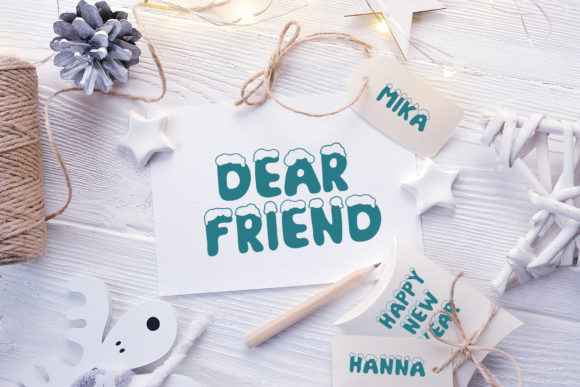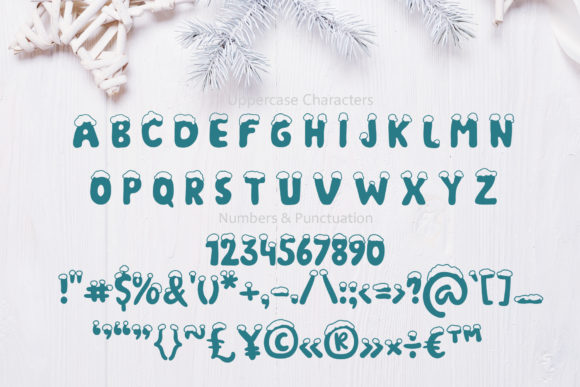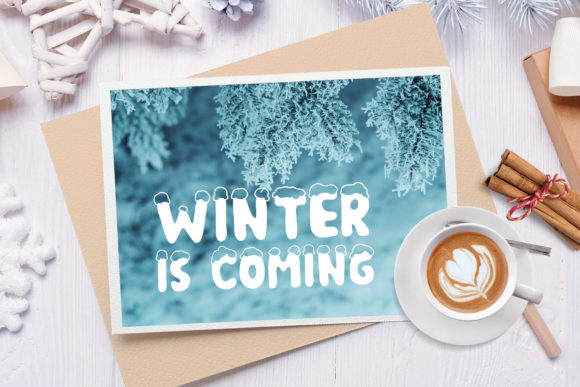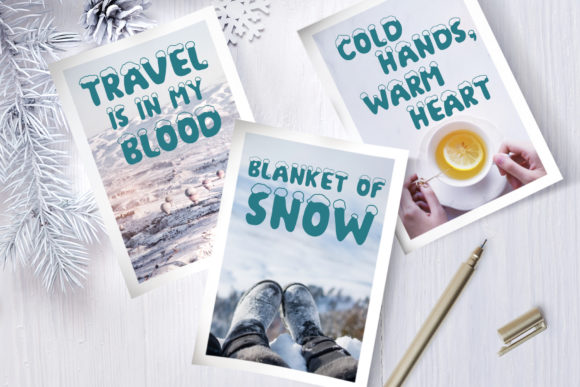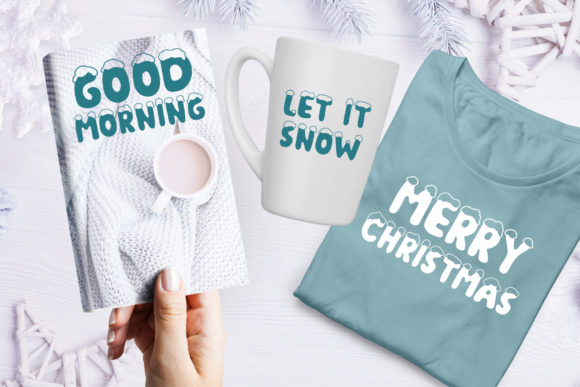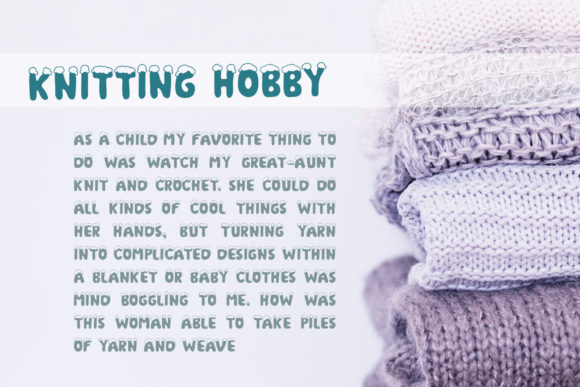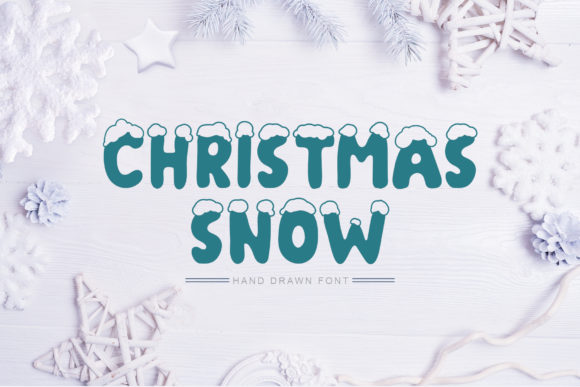
Christmas Snow Font: A Fun and Festive Display Font for Winter Activities
Are you looking for a font that captures the magic and wonder of the winter season? Look no further than the Christmas Snow Font! This fun and incredibly neat display font is ideal for winter activities, and is sure to instantly become your go-to choice for all your holiday design needs.
What is Christmas Snow Font?
Christmas Snow Font is a unique and festive display font that is perfect for creating eye-catching winter-themed designs. With its fun and playful style, this font is sure to add a touch of holiday cheer to any project. Whether you’re designing Christmas cards, holiday posters, or winter-themed crafts, Christmas Snow Font is the perfect choice.
Key Features of Christmas Snow Font
- Fun and playful style: Christmas Snow Font has a fun and playful style that is perfect for winter-themed designs.
- Unique and festive: This font has a unique and festive style that is sure to stand out from the crowd.
- Easy to read: Despite its playful style, Christmas Snow Font is easy to read and understand, making it perfect for use in a variety of designs.
- High-quality design: Christmas Snow Font is designed to high standards, ensuring that it looks great in any design.
Uses for Christmas Snow Font
Christmas Snow Font is a versatile font that can be used in a variety of winter-themed designs, including:
- Christmas cards: Create beautiful and festive Christmas cards with Christmas Snow Font.
- Holiday posters: Use Christmas Snow Font to create eye-catching holiday posters that are sure to grab attention.
- Winter-themed crafts: Add a touch of holiday cheer to your winter-themed crafts with Christmas Snow Font.
- Snowman designs: Create fun and festive snowman designs with Christmas Snow Font.
- Winter-themed party invitations: Use Christmas Snow Font to create fun and festive winter-themed party invitations.
Why Choose Christmas Snow Font?
There are many reasons why Christmas Snow Font is the perfect choice for your winter-themed design needs. Here are just a few:
- Unique and festive style: Christmas Snow Font has a unique and festive style that is sure to stand out from the crowd.
- High-quality design: Christmas Snow Font is designed to high standards, ensuring that it looks great in any design.
Tips for Using Christmas Snow Font
Here are a few tips for using Christmas Snow Font in your designs:
- Use it sparingly: While Christmas Snow Font is a fun and festive font, it can be overwhelming if used too much. Use it sparingly to add a touch of holiday cheer to your designs.
- Pair it with other fonts: Christmas Snow Font looks great when paired with other fonts. Try pairing it with a simple sans-serif font for a fun and festive look.
- Experiment with colors: Christmas Snow Font looks great in a variety of colors. Experiment with different colors to find the perfect look for your design.